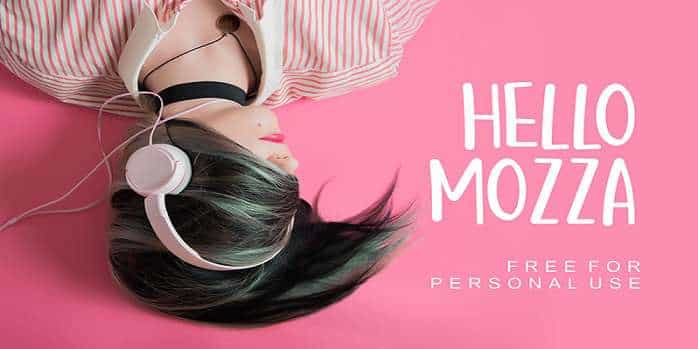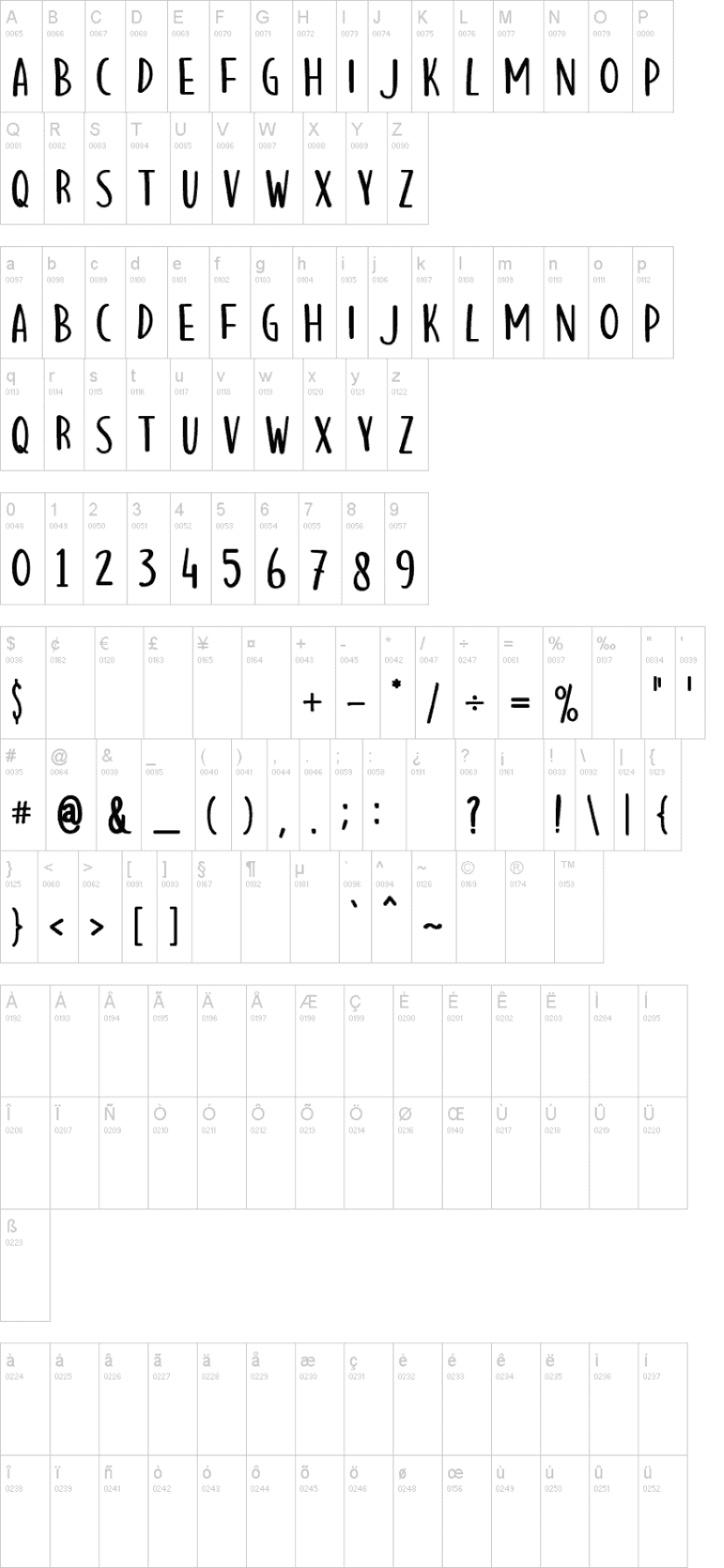
Discover Hello Mozza Font, part of the Various collection—a versatile and unique font perfect for adding a personal touch to your projects. Download it for free and enjoy crafting designs with style, from invitations to social media posts. This font is available exclusively for personal use, giving you the freedom to create without limits. Unlock your creativity with Hello Mozza Font today!